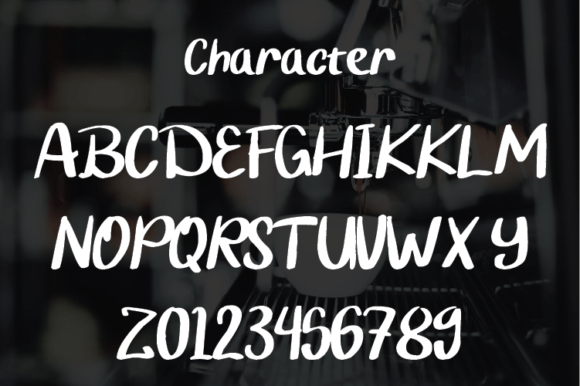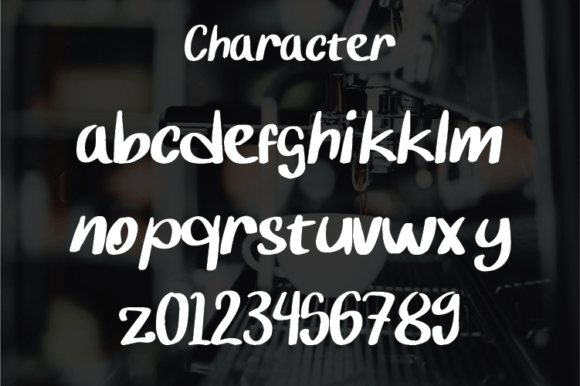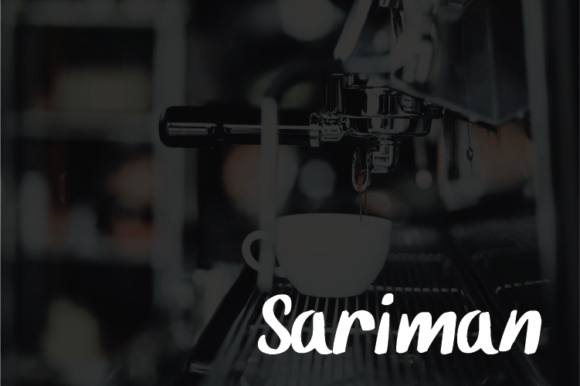
Introduction to Sariman Font
Samiran is a neat and clean handwritten font.
It looks beautiful on a variety of designs requiring a personalized style, such as wedding invitations, thank you cards, greeting cards, logos, and so on .
Key Features of Sariman Font
Why Choose Sariman Font?
Sariman Font offers exceptional quality and versatility, making it a valuable addition to your design toolkit. Whether you’re creating for personal projects or commercial use, Sariman Font delivers professional results.